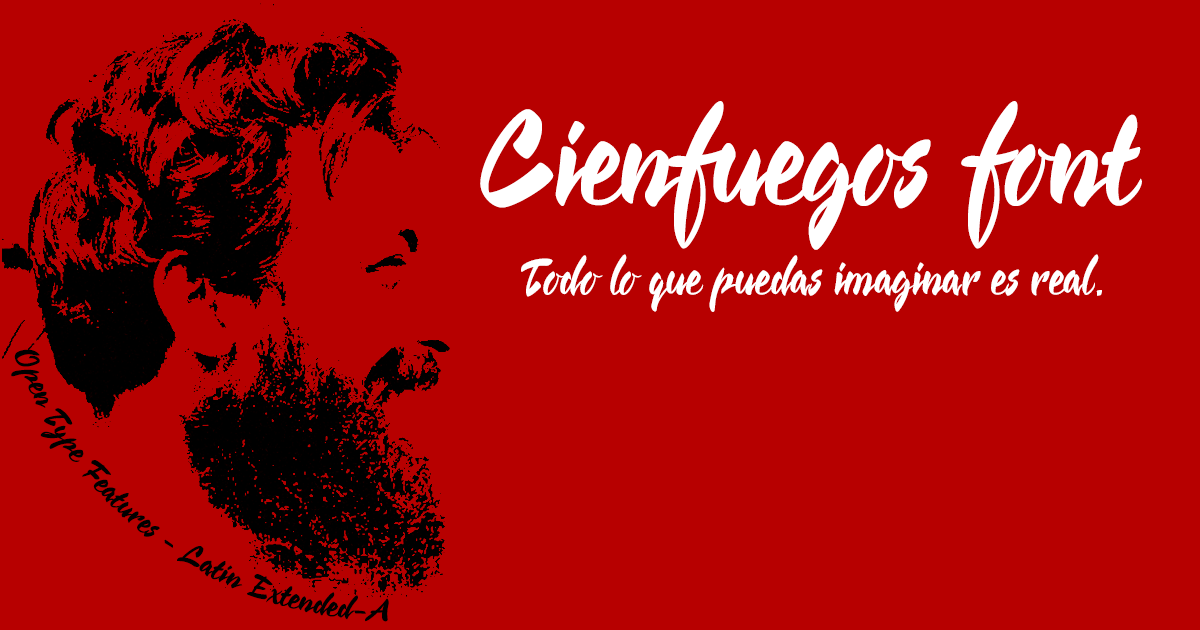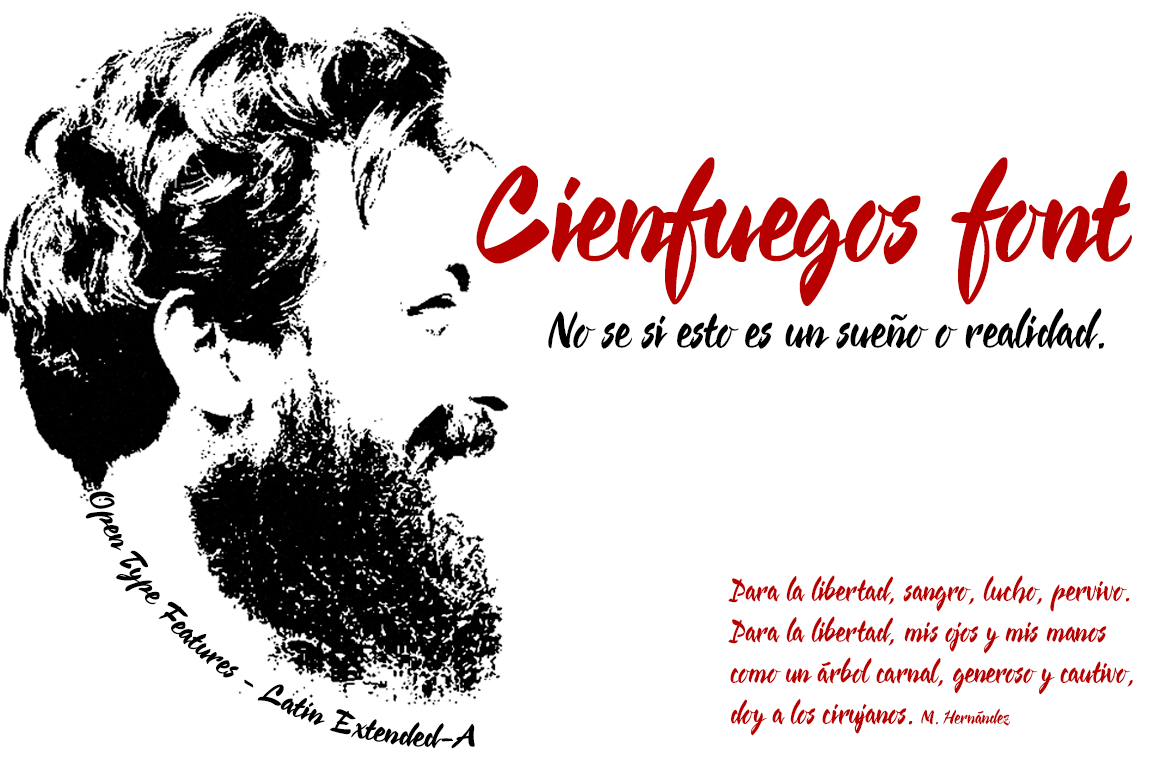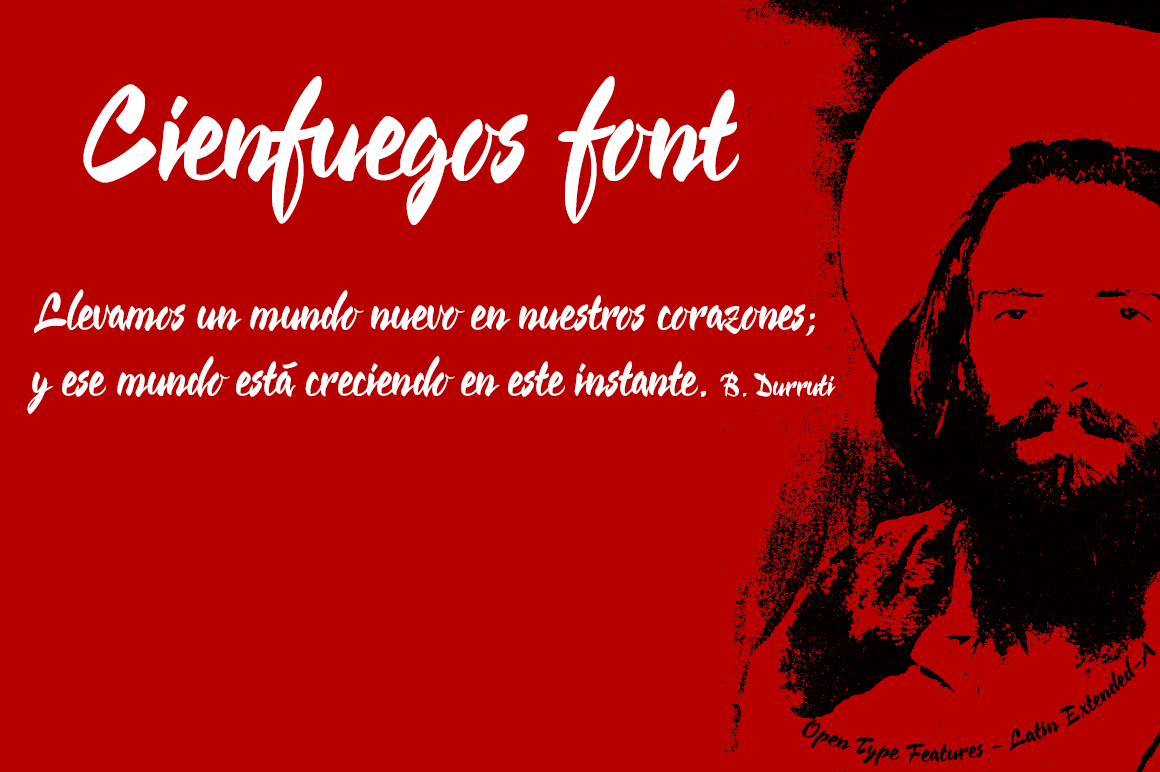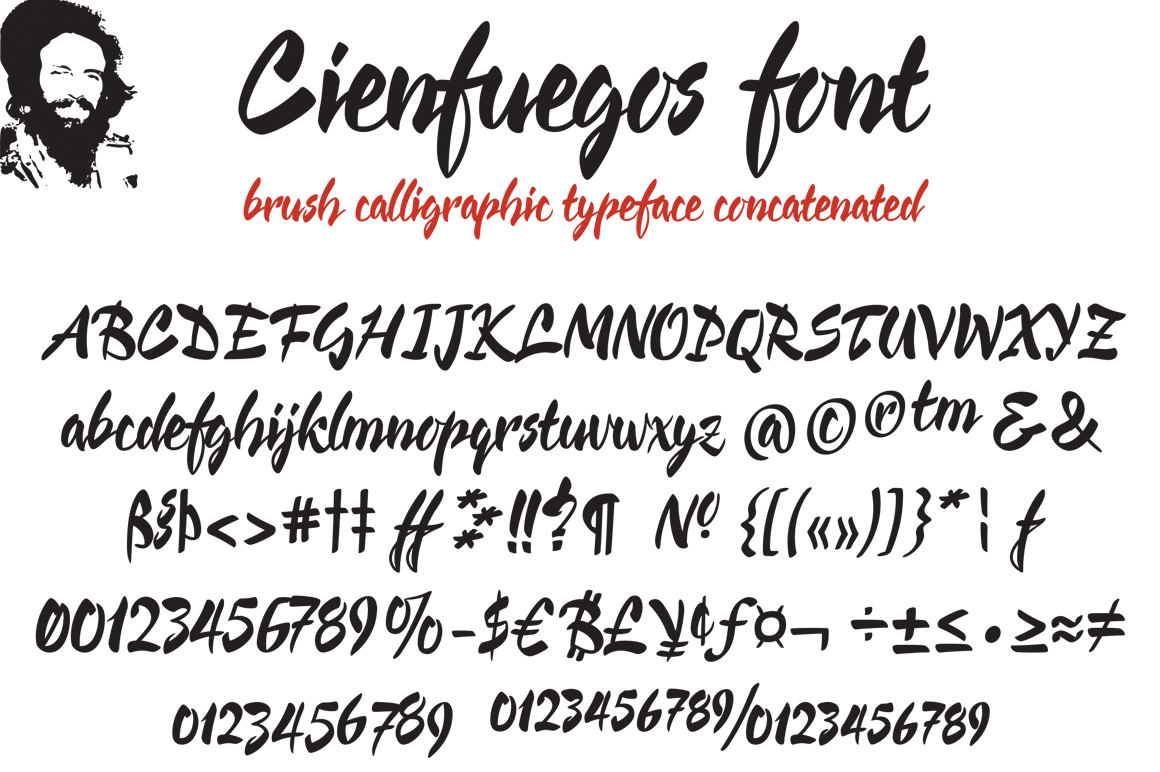
Cienfuegos Font
About Cienfuegos Font
The Cienfuegos font by deFharo is a font dedicated to Camilo Cienfeugos, the Cuban revolutionary humanist. This concatenated smooth font is a fun handwritten font.